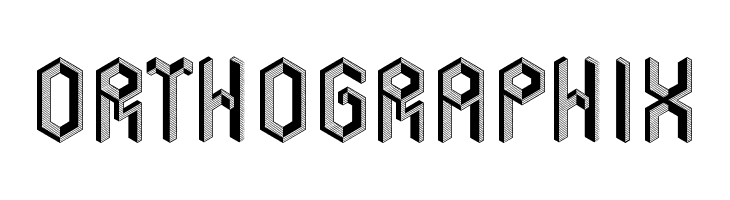
A bold, shadowed font with a three-dimensional effect, perfect for impactful designs.
A geometric, futuristic font with bold, angular lines and a layered appearance.